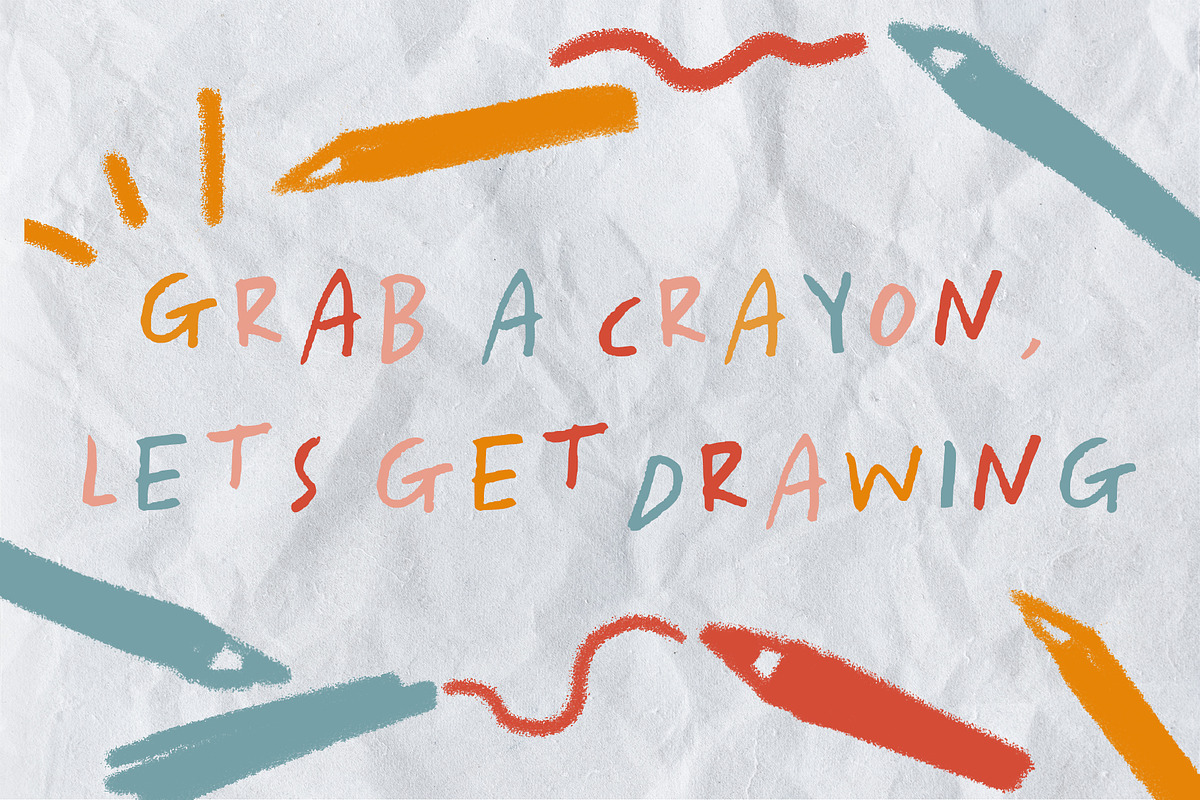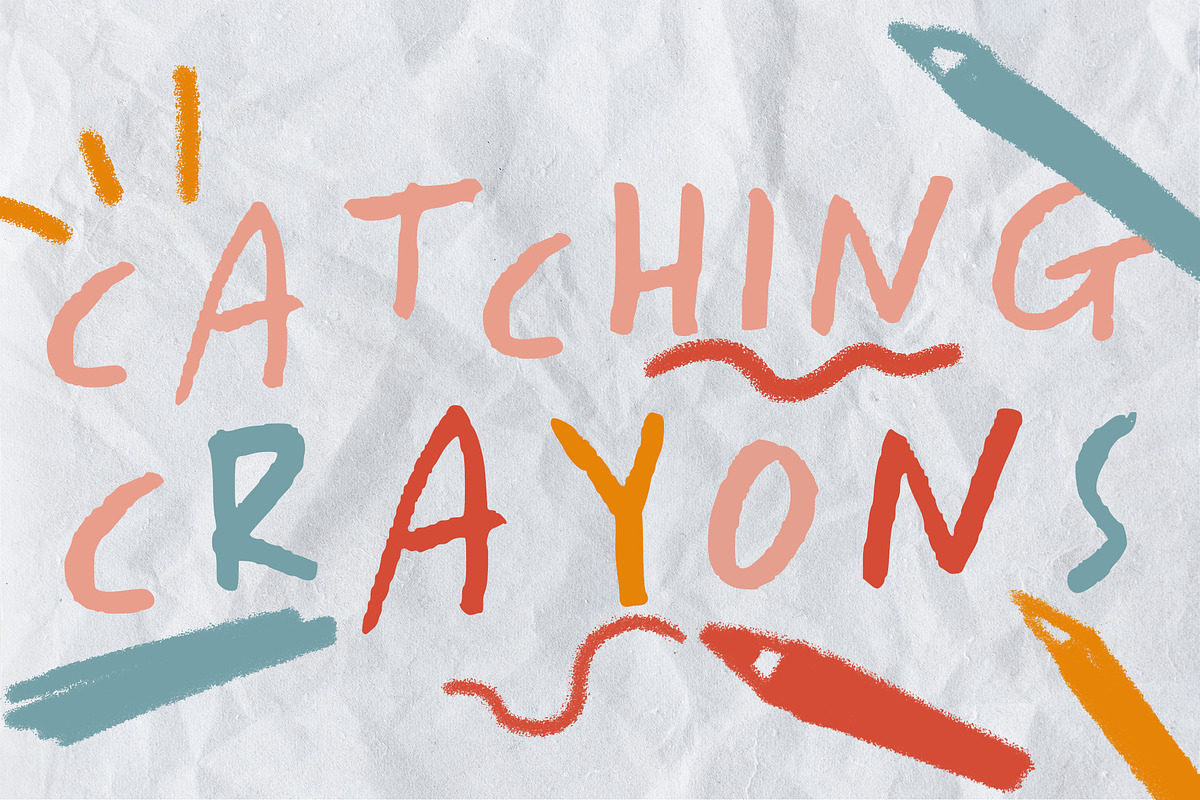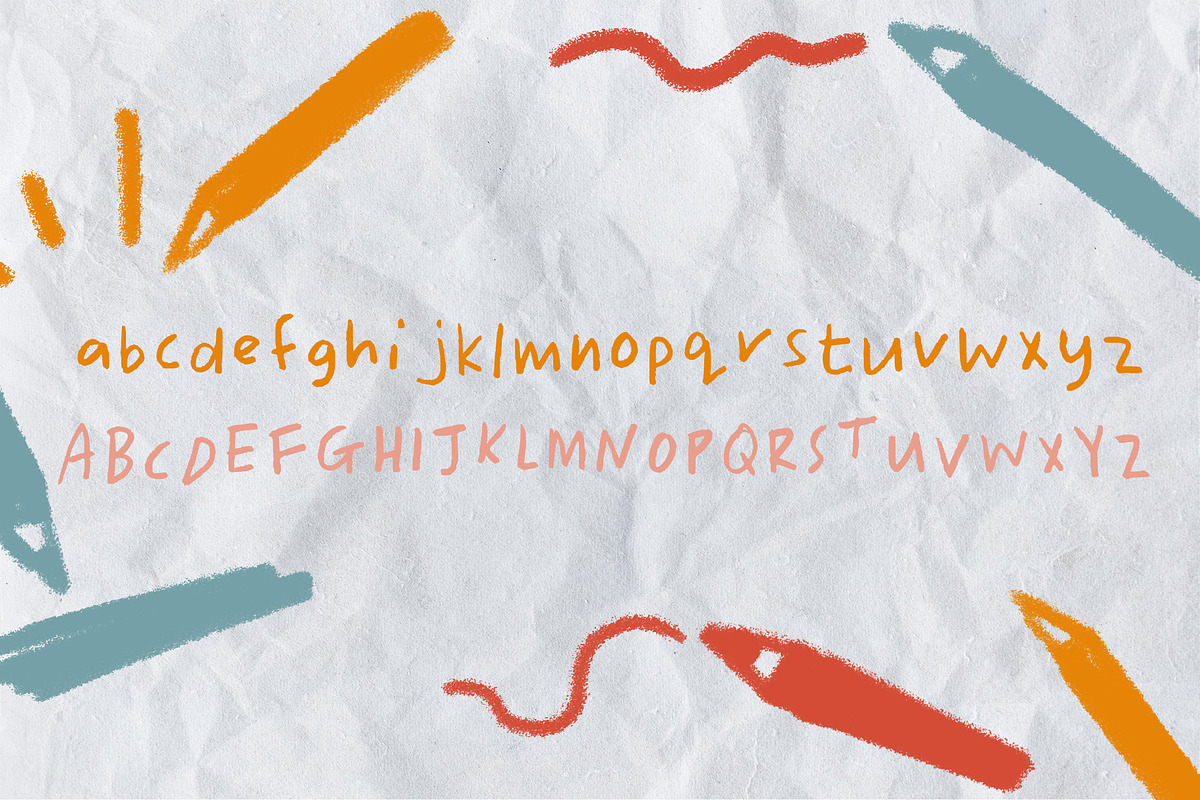
Catching Crayons
"Catching Crayons" is a friendly and childlike font inspired by the innocence of childhood drawings. With playful strokes and vibrant characters, it captures the carefree spirit of doodles and imaginative sketches. Each letter dances with the spontaneity and joy reminiscent of crayon creations, bringing a nostalgic charm to your designs. Perfect for projects that celebrate the magic of early creativity, "Catching Crayons" infuses a sense of whimsy and lightheartedness. Whether used for invitations, children's literature, or any design seeking a touch of youthful exuberance, this font adds a delightful flair. Immerse your audience in the colorful world of imagination with "Catching Crayons," where every letter sparks memories of the joyous simplicity found in childhood drawings.